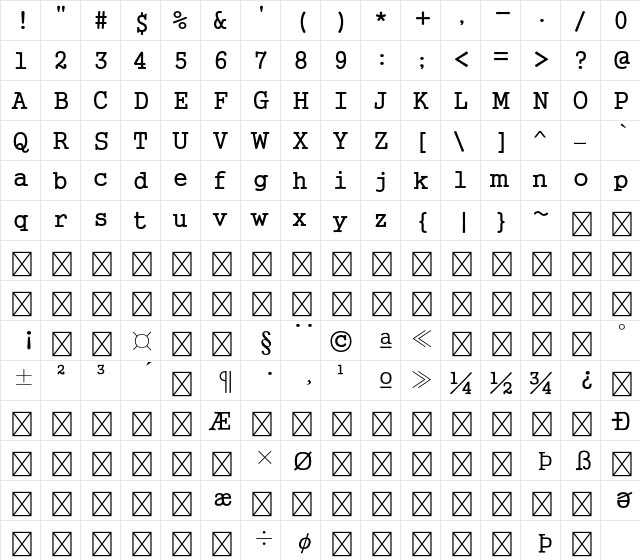
HY GungSo Std B
Design Context for HY GungSo Std Typeface
HY GungSo Std is a composed and adaptable typeface that performs quietly and consistently across a wide range of design contexts.
Originally released in 2002, this typeface is available in OpenType (OTF) format.